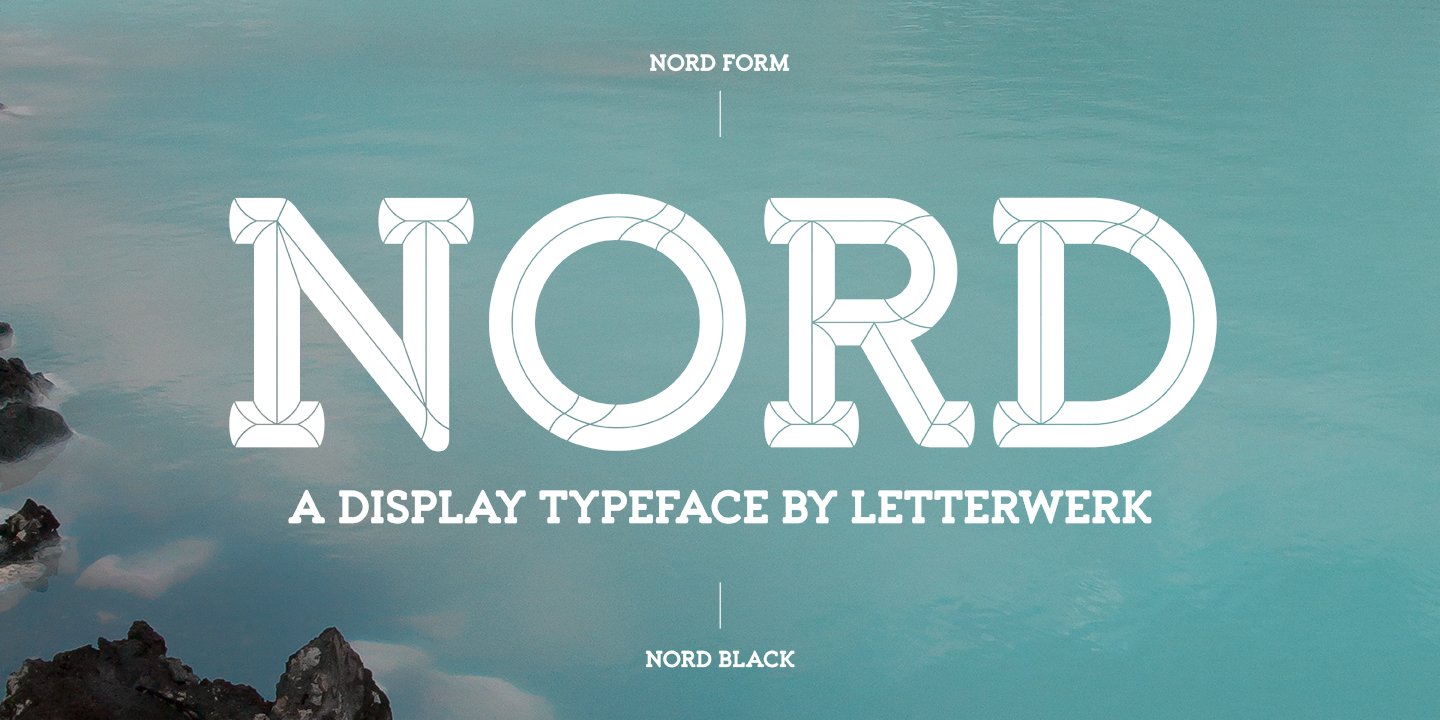
Nord Font is perfect for Scandinavian design brands, Nordic lifestyle products, minimalist architecture firms, clean technology companies, Arctic expedition services, Norwegian cultural organizations, modern furniture retailers, sustainable living brands, and any project requiring typography with Nordic simplicity and Scandinavian design sophistication.
What makes Nord Font exciting is its Nordic purity that captures the essential minimalism and functional beauty of Scandinavian design philosophy with clean letterforms that embody the crystalline clarity and understated elegance found in the pristine landscapes of the Nordic countries. This refined typeface reflects the harmonious balance between form and function with geometric precision that mirrors the architectural principles and design aesthetics that have made Scandinavian style globally admired for its timeless sophistication. The font's Nordic character and minimalist sophistication make it perfect for brands celebrating clean design, sustainable living, and the profound beauty found in simplicity and functional excellence.
The Nord Font family includes light, regular, and bold weights, featuring complete uppercase and lowercase alphabets, numerals, punctuation marks, and Nordic design elements. The font maintains consistent minimalist elegance throughout all weights while ensuring excellent readability for both clean headlines and precise text applications in contemporary design and lifestyle contexts.
Whether you're designing for Scandinavian brands, creating minimalist product materials, or developing clean technology branding with Nordic aesthetics, Nord Font Free Download delivers unmatched Nordic sophistication and minimalist authority to your projects. This exceptional typeface transforms ordinary text into expressions of pure design that celebrate the timeless principles of Scandinavian aesthetics and the profound beauty of functional minimalism. The font's Nordic character makes it ideal for design studios, sustainable brands, and contemporary lifestyle companies. Download this remarkable font today and bring the pristine elegance of Nordic design philosophy to your design projects with authentic Scandinavian sophistication and nord-inspired purity.